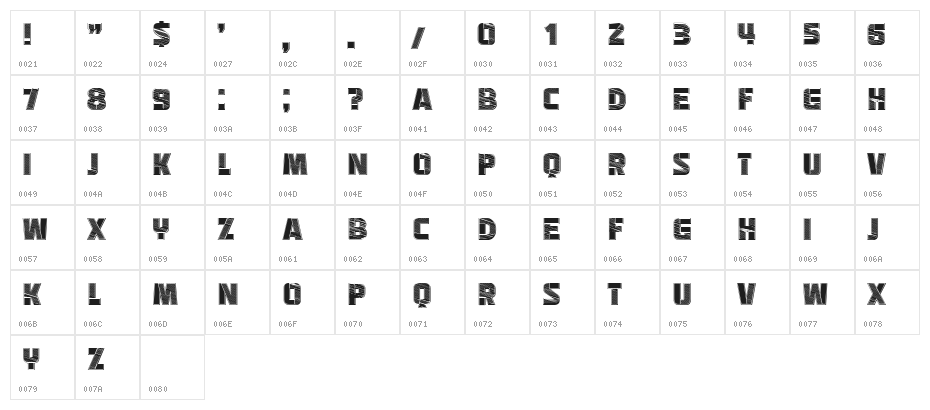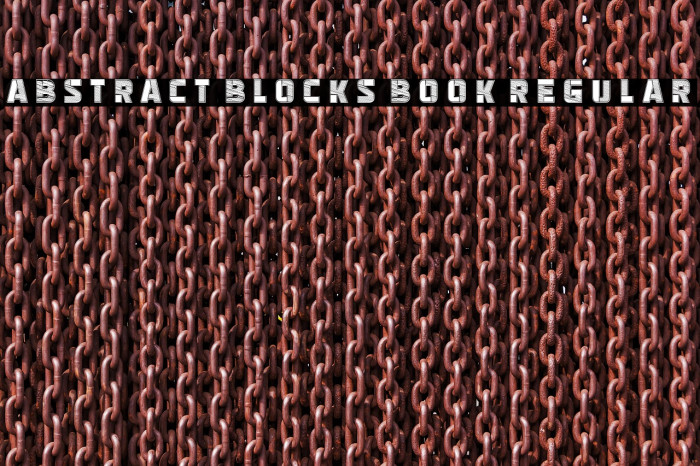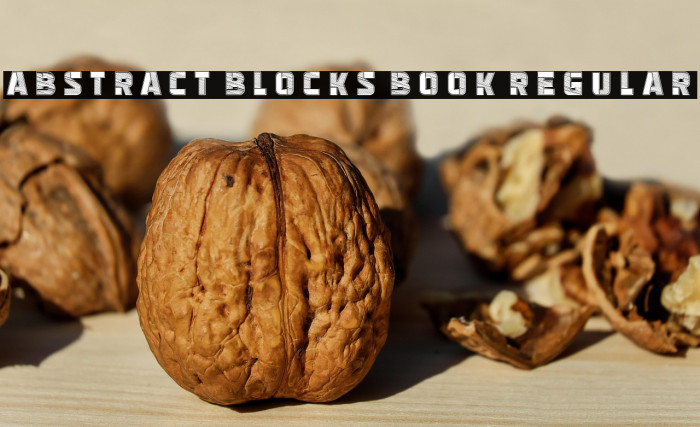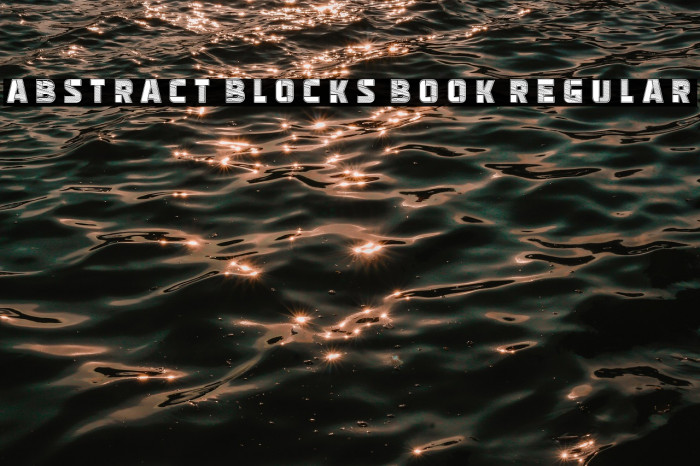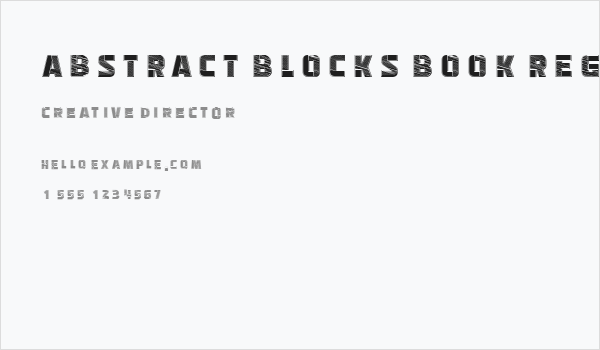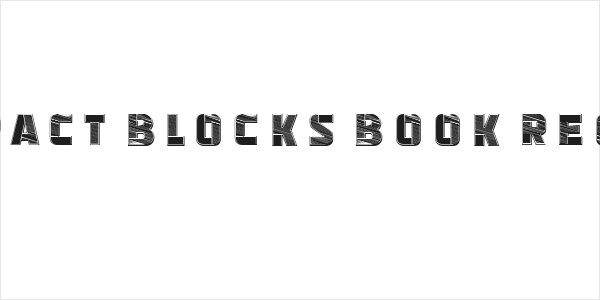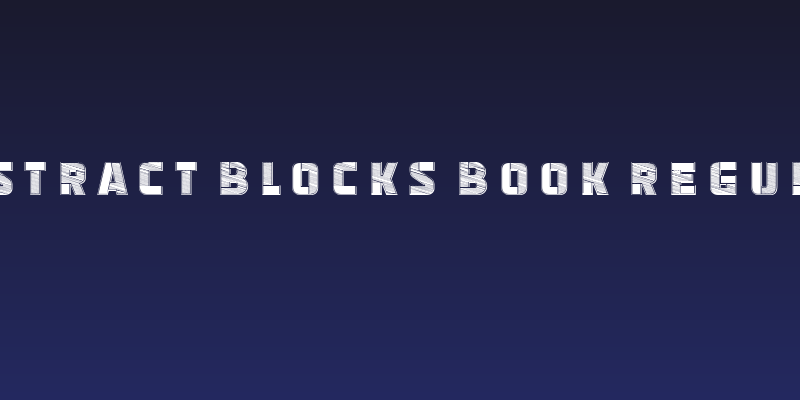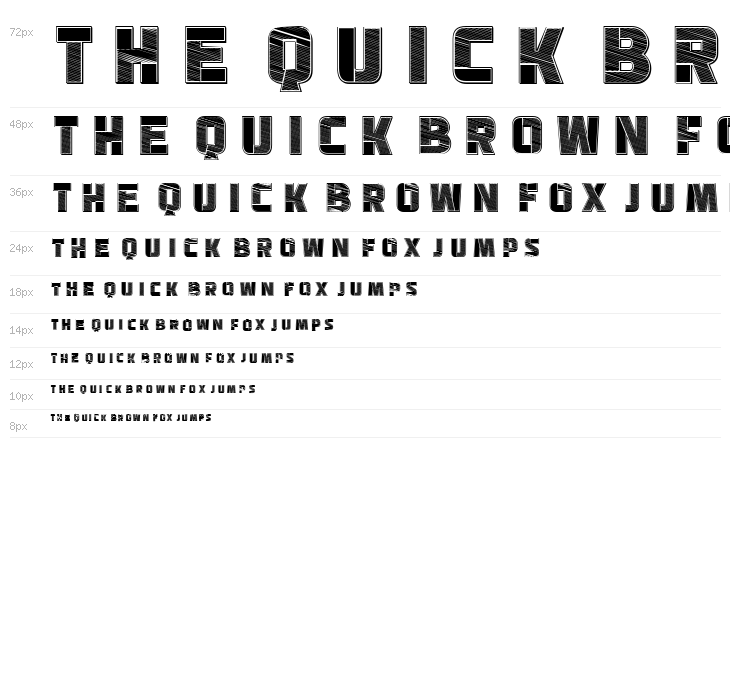
Abstract Blocks Book Regular Font
Abstract Blocks Book Regular Description
This font features a bold, geometric design with a distinct block-like appearance. Each character is crafted with a solid, filled structure, accented by a unique pattern of diagonal lines that add depth and texture. The uppercase and lowercase letters maintain a consistent style, with sharp edges and a modern, industrial feel. The numerals and special characters follow the same design principles, ensuring uniformity across all glyphs. This font's strong visual presence makes it ideal for attention-grabbing headlines and impactful graphic designs.
| Overall Style | Modern, Industrial |
| Proposed Projects | Ideal for posters, logos, branding materials, and any project requiring a strong, modern aesthetic. |